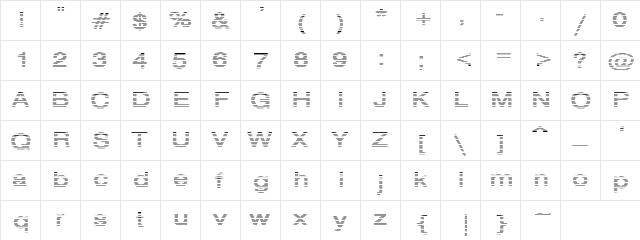
HvStripe-ExtraB Regular
Design Context for HvStripe-ExtraB Typeface
HvStripe-ExtraB takes a measured approach to typography — its balanced proportions and neutral character make it a reliable workhorse for both digital and print work.